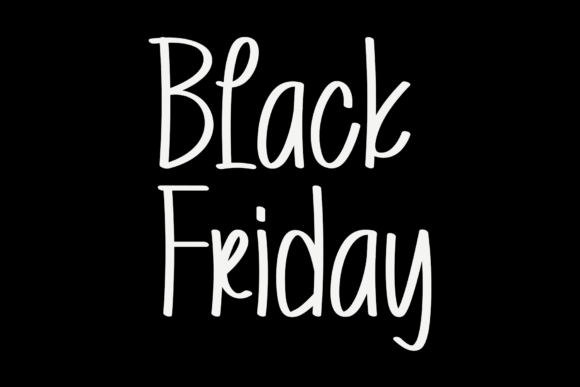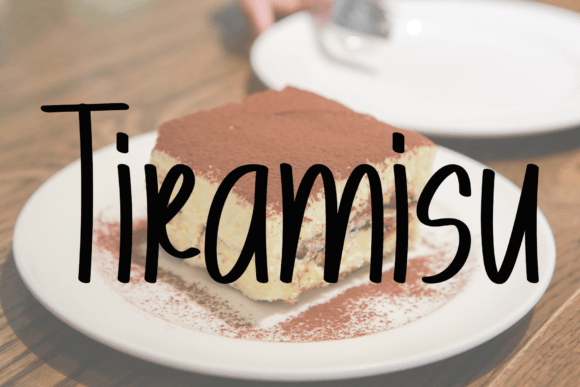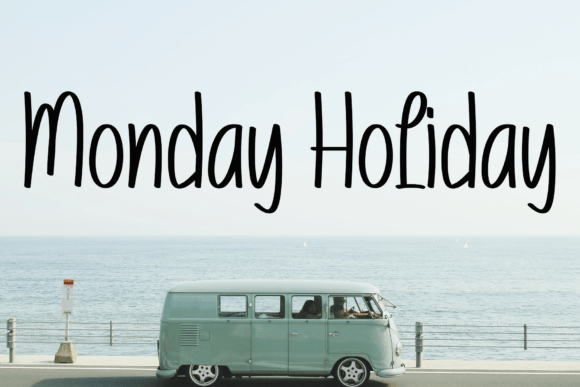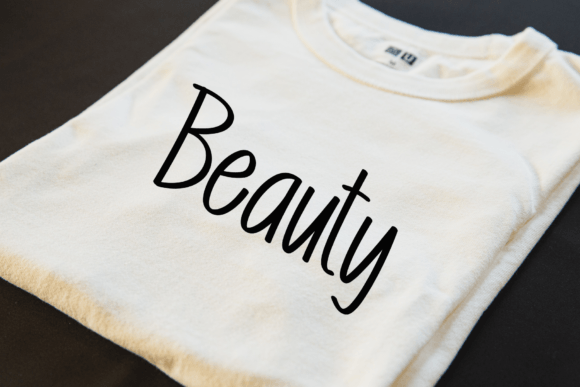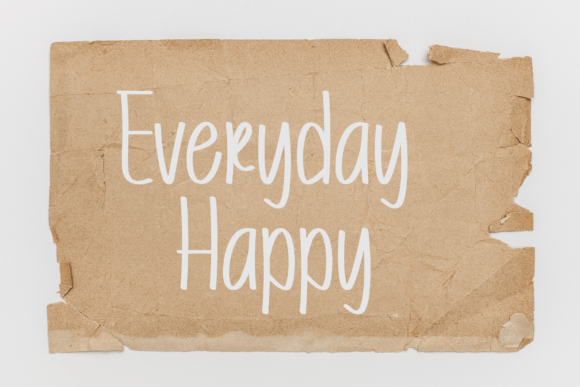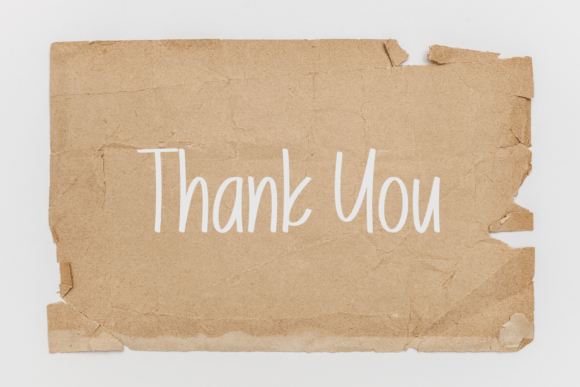
The Adventure Font: A Timeless Companion for Your Design Journey
Have you ever been in the middle of a design project, and suddenly, you’re stuck on finding the perfect font? I recall a recent experience where I was working on a branding project for a travel company, and I just couldn’t find a font that captured the essence of adventure and elegance. That’s when I stumbled upon the Adventure font, and it instantly became my go-to choice. In this article, I’ll share my journey with this beautiful handwritten font, its features, and how you can make the most of it in your designs.
A Personal Review: What I Love About Adventure Font
The Adventure font has won my heart with its unique characteristics. Here’s what I love about it:
- ✨ Elegant touch: The font exudes a sense of sophistication and refinement, making it perfect for high-end designs.
- ✅ Unique style: The Adventure font has a distinct and timeless style that sets it apart from other fonts.
- 💫 Versatility: It can be used for a wide range of projects, from branding and advertising to packaging and editorial design.
While the Adventure font is amazing, there are a few minor quirks to be aware of:
- 🤔 Limited character set: The font may not have an extensive character set, which could limit its use in certain projects.
- ⚠️ Kerning issues: As with any font, you may encounter kerning issues, especially when using it at smaller sizes.
The Adventure font was created with the intention of capturing the essence of exploration and elegance. The designer aimed to create a font that would be perfect for designs that require a touch of sophistication and adventure. The result is a timeless font that’s both elegant and versatile.
| Font Name | Adventure Font |
| What is the Adventure font best suited for? | The Adventure font is perfect for designs that require a touch of elegance and adventure, such as branding, advertising, packaging, and editorial design. |
| Is the Adventure font suitable for body text? | While the Adventure font is beautiful, it may not be the best choice for body text due to its elegant and cursive nature. It’s better suited for headlines, titles, and short paragraphs. |